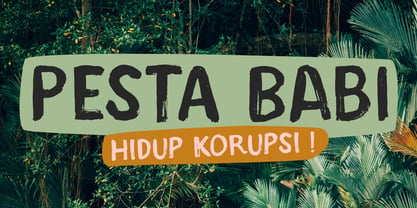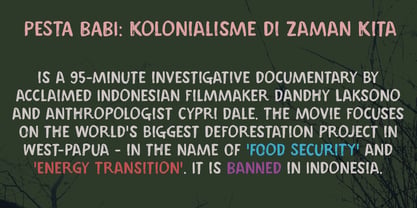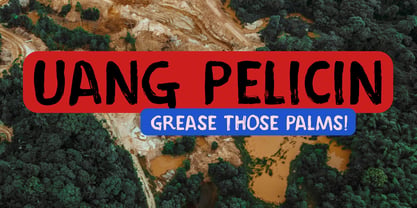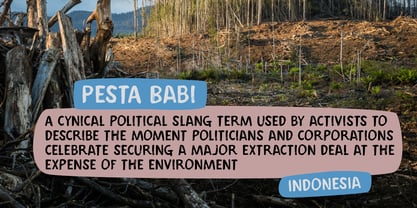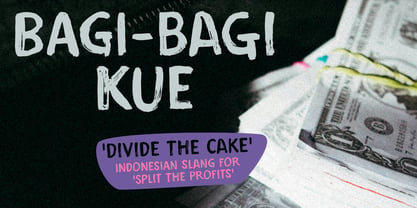
Pesta Babi
by Hanoded
The Pesta Babi Font Family was designed by David Kerkhoff and published by Hanoded. Pesta Babi contains 2 styles and family package options. More about this family
Pesta Babi is Indonesian for ‘Pig Feast’. It is also a slang expression used by activists to describe the moment politicians and corporations celebrate securing an extraction deal at the expense of the environment. All of this can be watched in the documentary by the same name.
Pesta Babi is a handmade protest font. I used black gouache paint (palm oil free) and a stiff brush to get the eroded effect. It is a very distinct and legible font, ideal for protest signs, pamphlets and book covers!